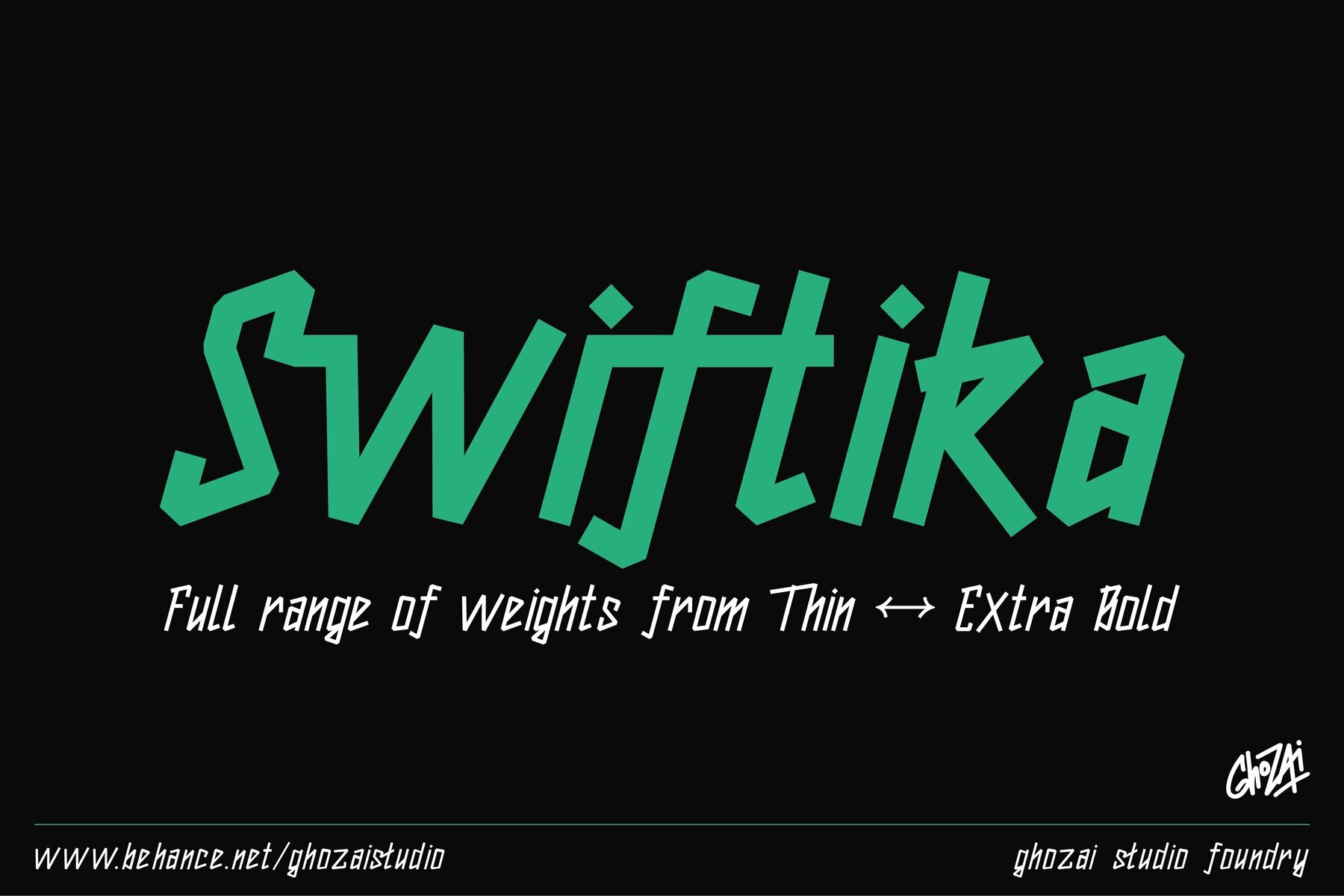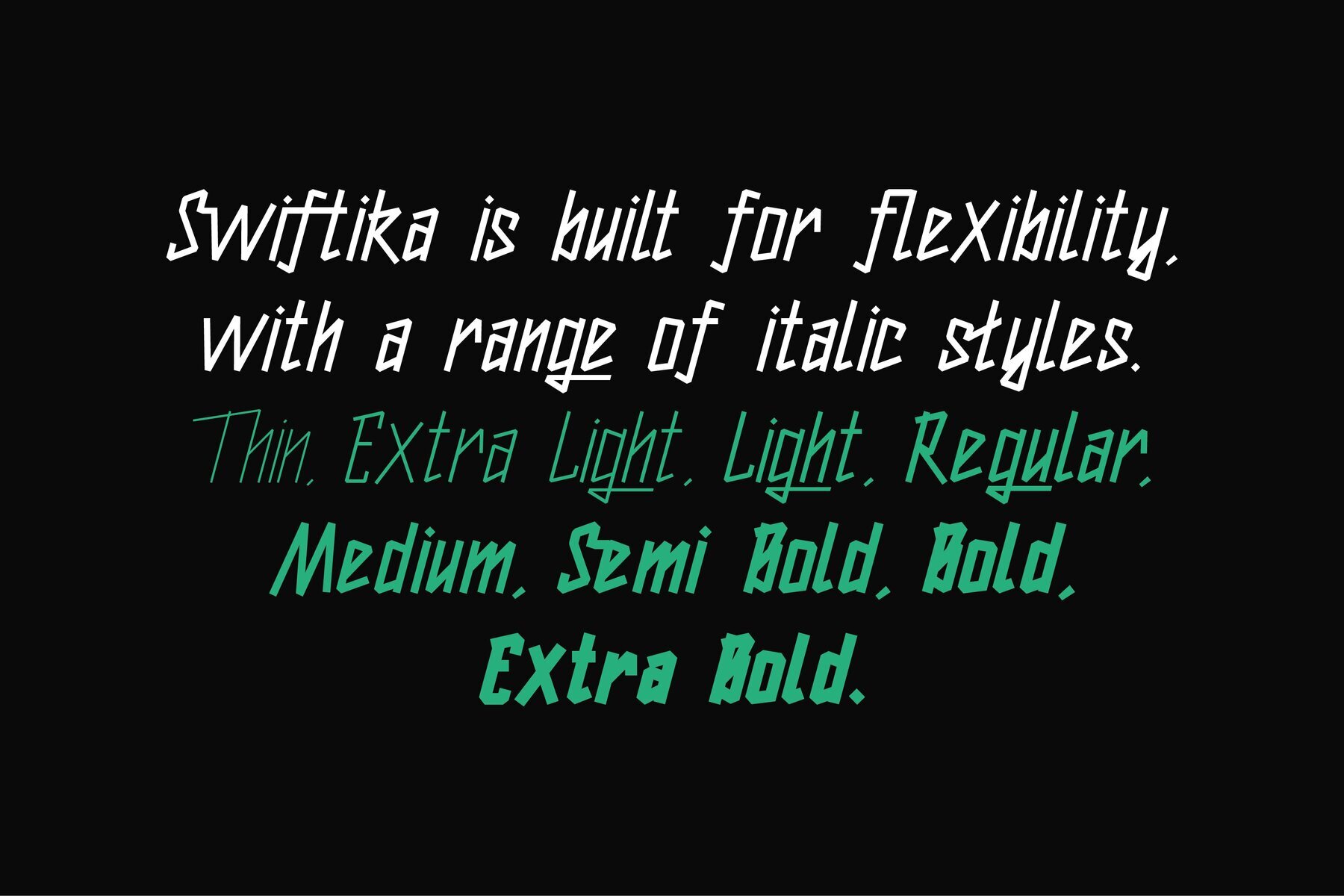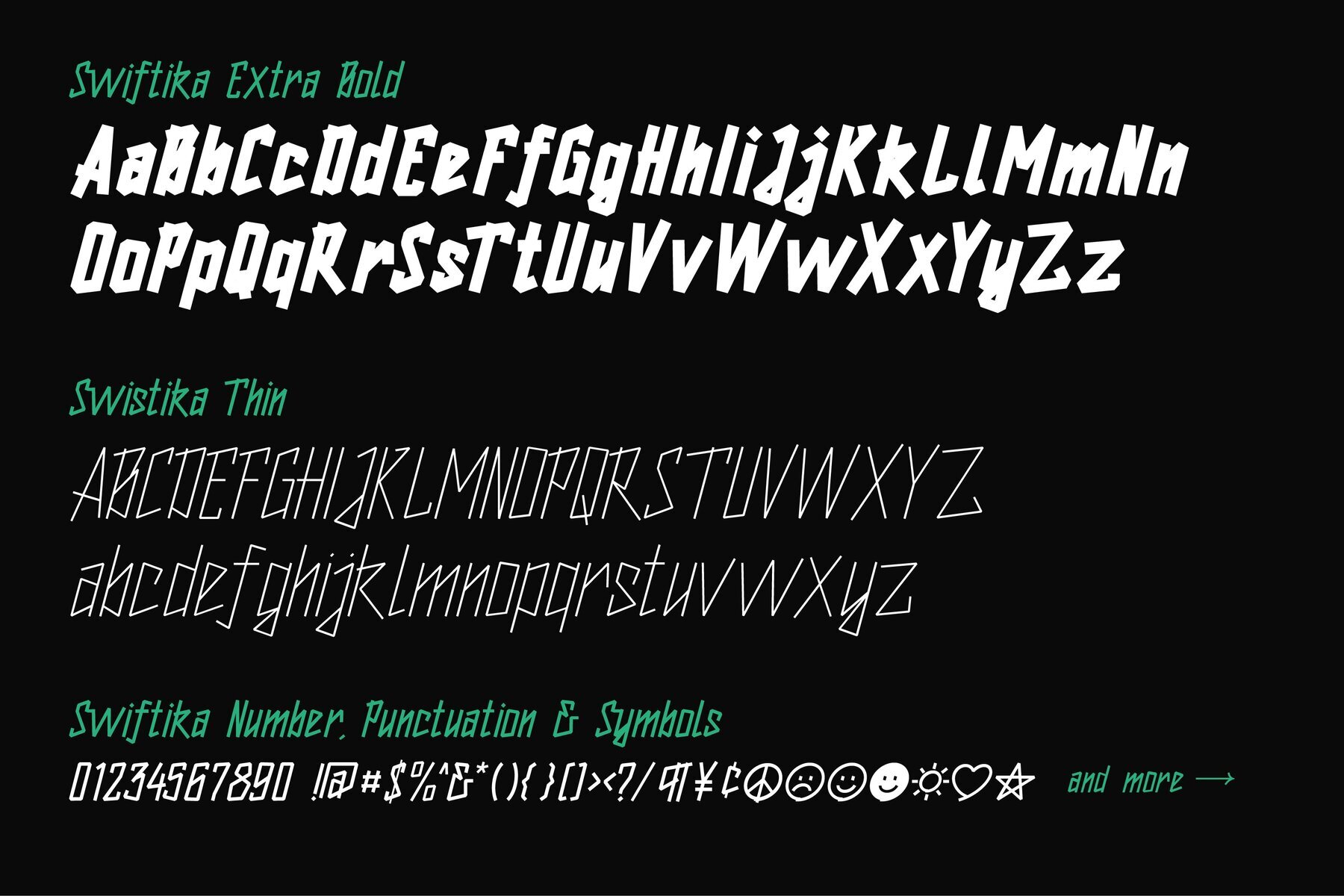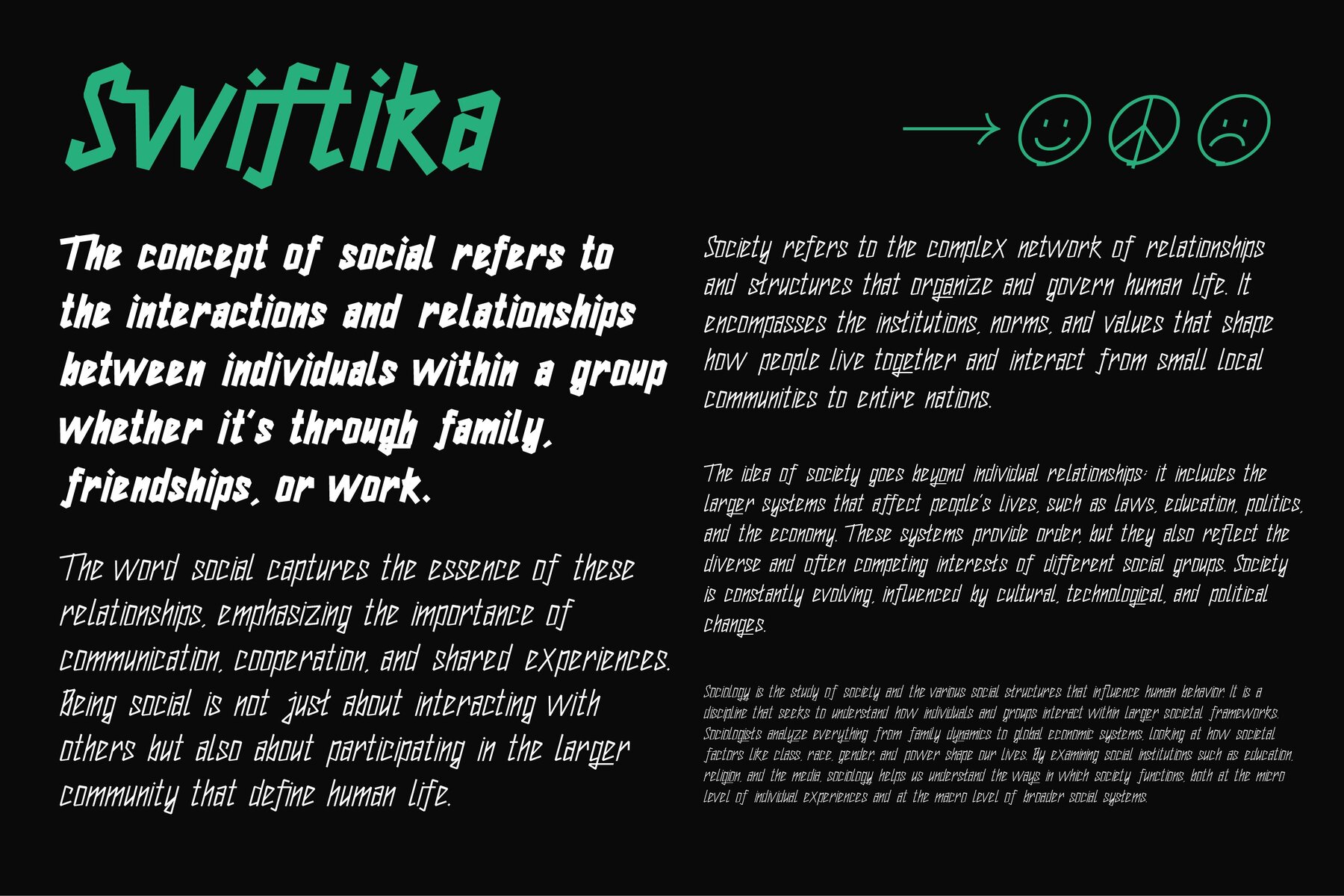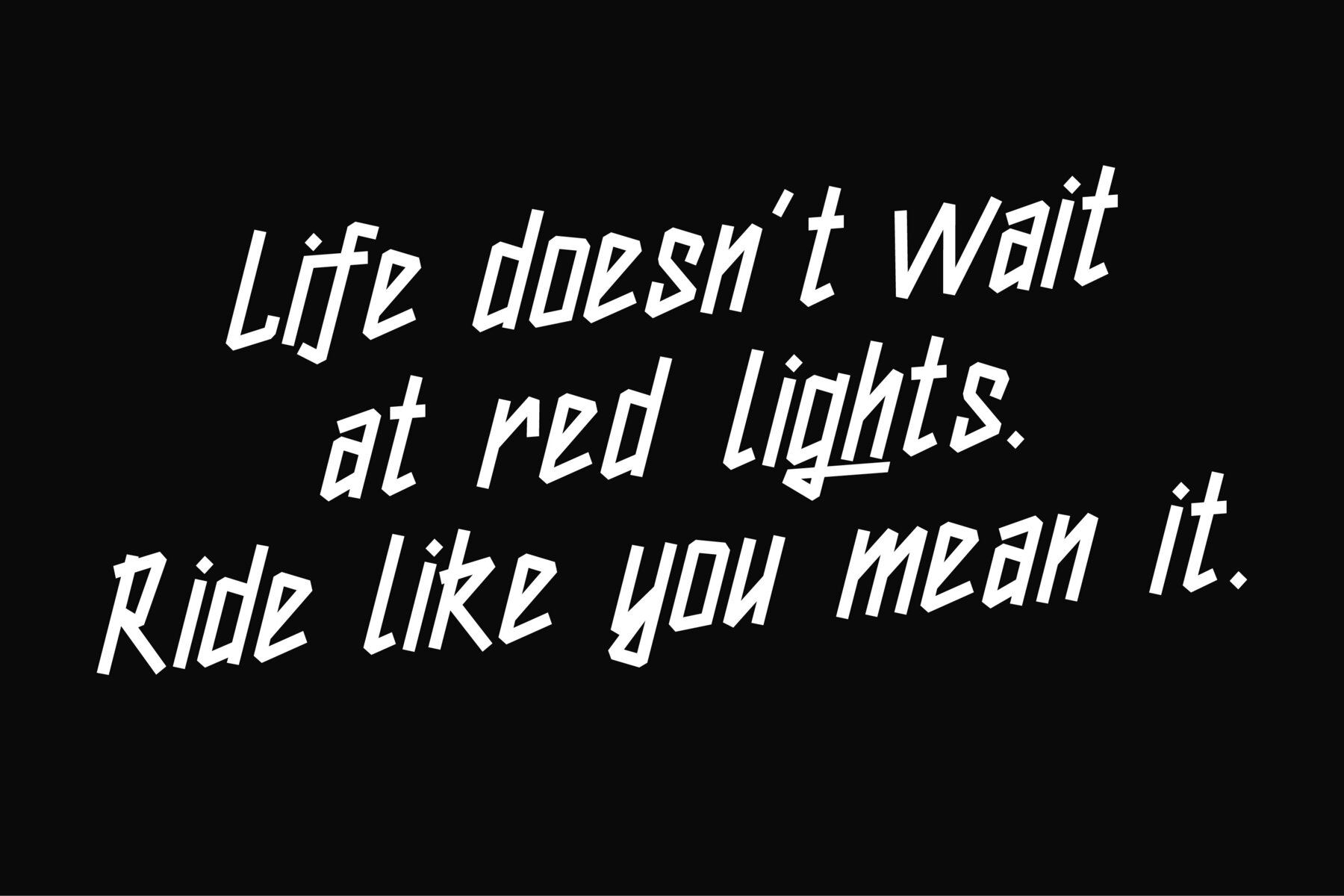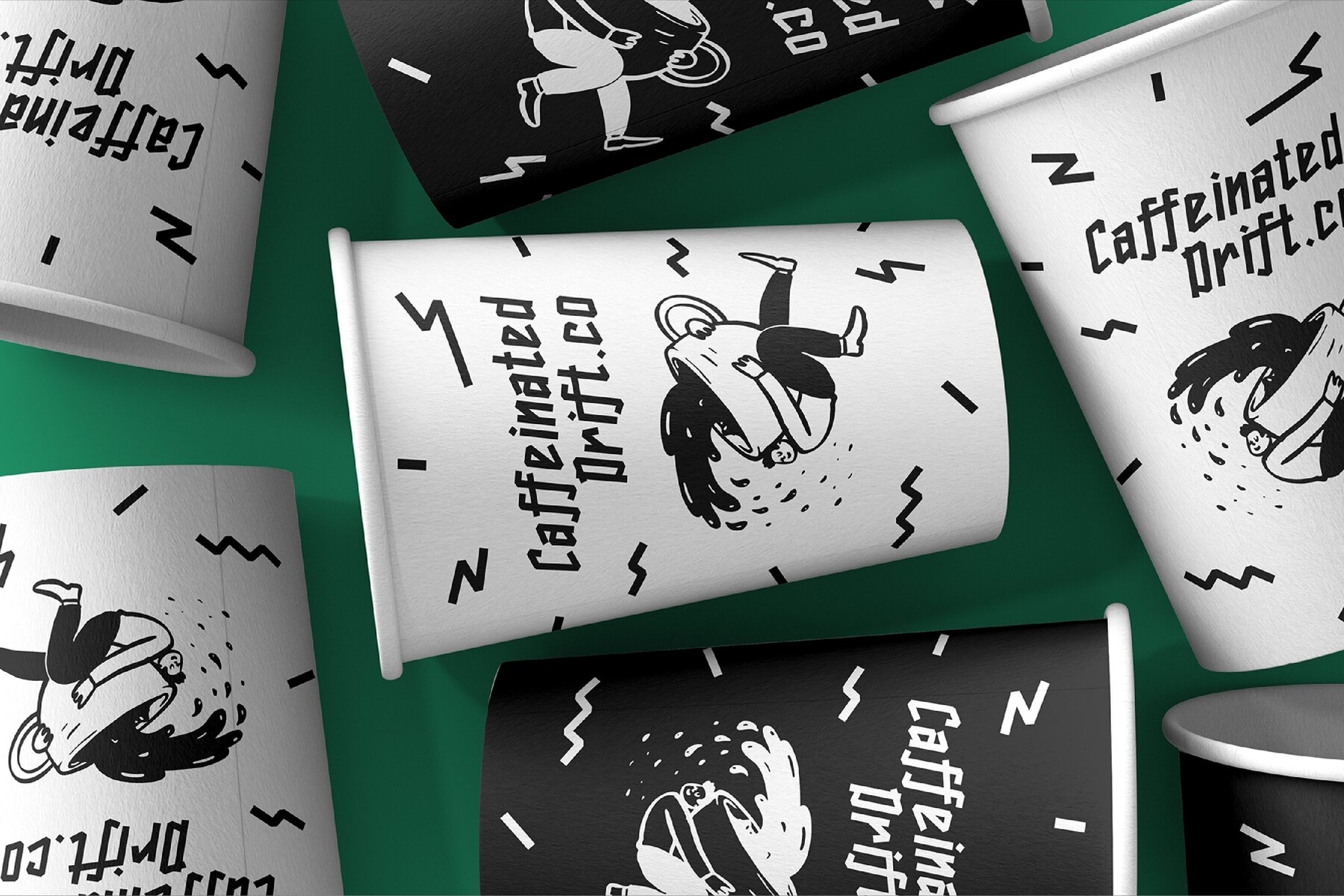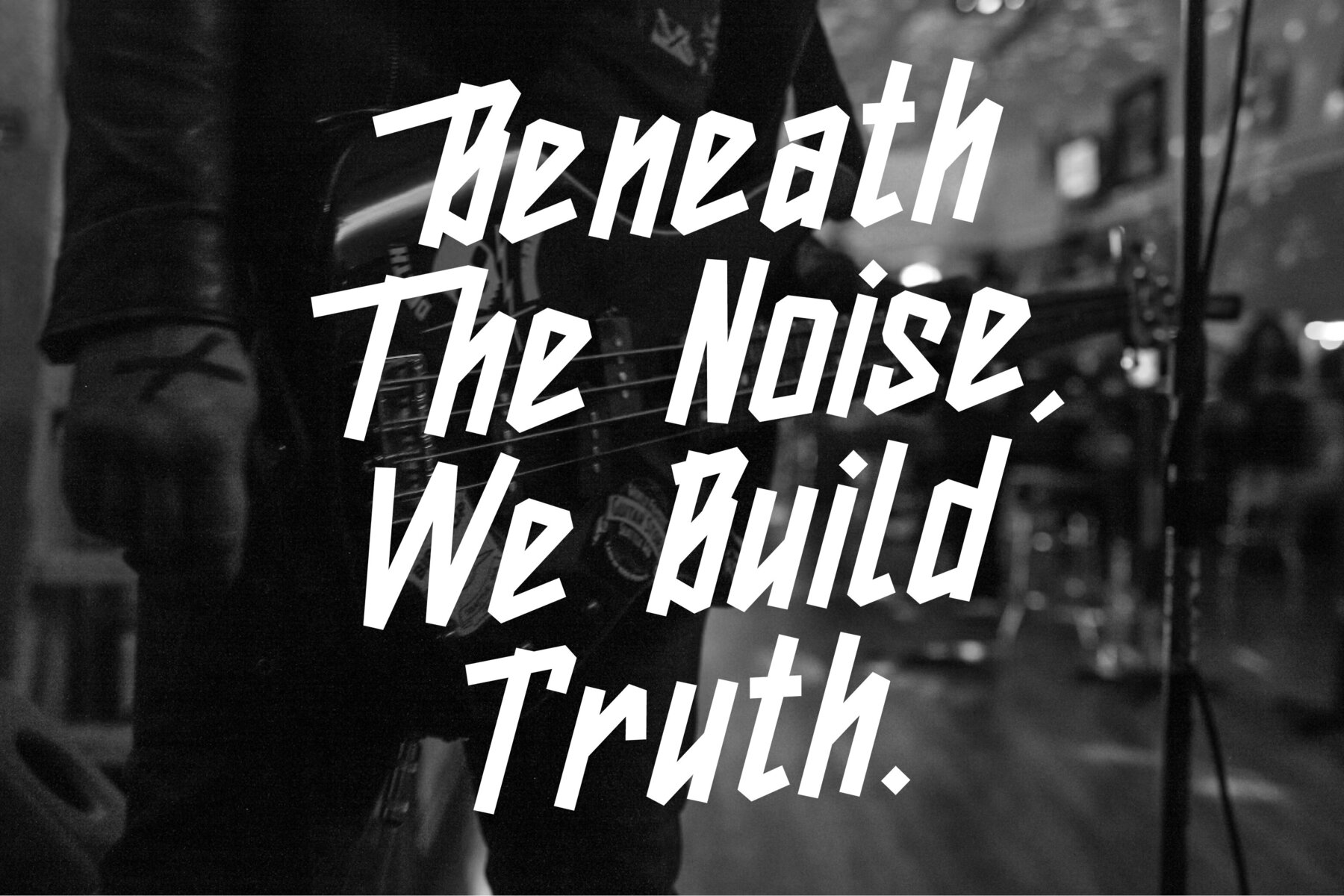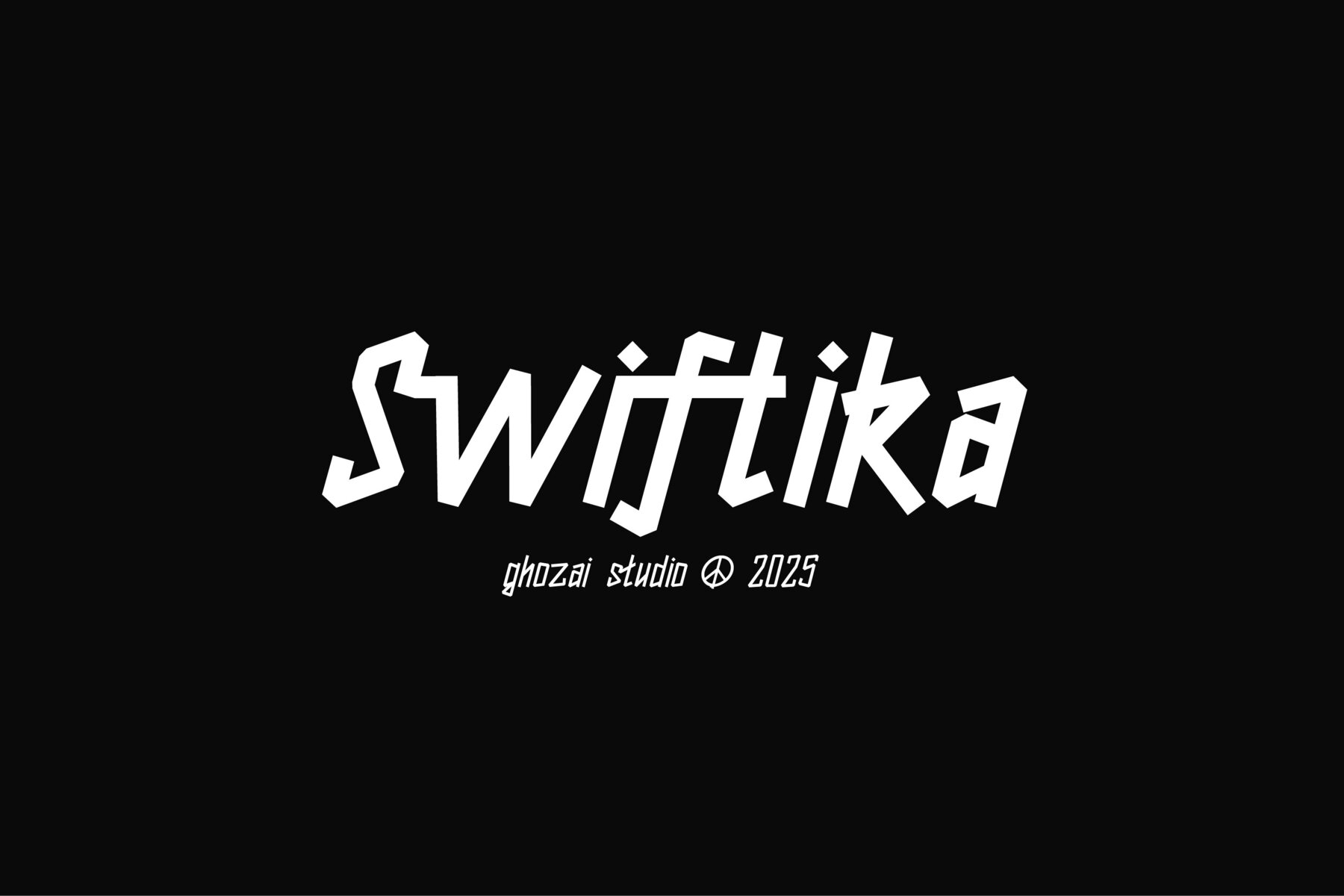
Swiftika Font
Swiftika offers a firm, edgy, bold presence wrapped in a natural, handmade vibe, available in eight distinctive styles ranging from Thin to Extra Bold. With a rich variety of ligatures and alternative stylistic sets, it effortlessly achieves a personal, handwritten appearance that enhances the unique flair of any visual project. Swiftika is an excellent choice for anyone seeking a bold, authentic hand-drawn aesthetic. Its versatility makes it perfect for diverse applications in both digital and print media. Whether you're working on branding, music-themed projects, street culture designs, or motorcycle-themed graphics, this font imparts an essential touch of individuality and charm.Swiftika: Expressive Italic with Handmade Style